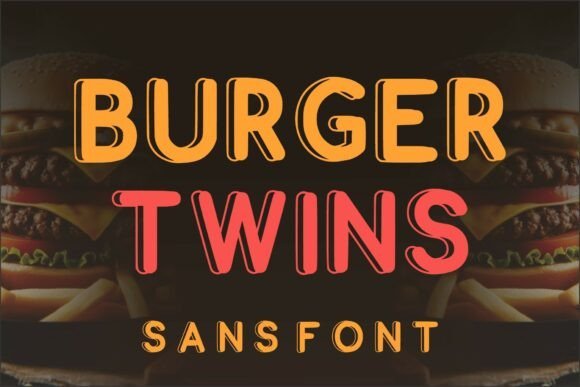
The Perfect Bite: Unlocking the Power of Burgertwins Regular 1 Font
Have you ever been scrolling through social media and come across a mouthwatering food photo that immediately grabs your attention? The vibrant colors, the playful graphics, and the bold typography all come together to create an irresistible visual experience that makes your mouth water. For designers, creating this kind of impact is a challenge, but with the right font, it’s achievable. That’s where Burgertwins Regular 1 Font comes in – a bold and playful sans-serif display typeface that captures the lively vibe of retro diner culture.
This versatile font is perfect for menus, food packaging, branding, or social media graphics, bringing a warm, inviting personality that instantly grabs attention. Its clean, smooth strokes make it ideal for headlines and bold statements, while its vibrant, layered style delivers a unique twist that sets your designs apart.
Burgertwins Regular 1 Font Key Features
- Font Family: Burgertwins Regular 1
- Unique Characteristics: Burgertwins Regular 1 features a unique, hand-drawn design with a playful and whimsical feel, making it ideal for use in branding, advertising, and editorial content
Burgertwins Regular 1 Font Review
As a designer, I was excited to try out the Burgertwins Regular 1 Font. Here’s my honest review.
Firstly, I love the playful, retro vibe of this font. It’s perfect for casual, laid-back designs that need a touch of personality. The font is highly legible, making it suitable for body text and short paragraphs.
- The Burgertwins Regular 1 Font has a wide range of applications, from advertising and marketing materials to social media graphics and blog posts.
- Its friendly, approachable tone makes it a great choice for designs targeting a younger audience.
While the font is great for casual designs, it may not be the best choice for formal or professional projects. Additionally, the font lacks a bold weight, which can limit its use in headings and titles.
- The lack of bold weight makes it challenging to create clear headings and titles.
- The font may not be suitable for designs that require a high level of sophistication or elegance.
Overall, I think the Burgertwins Regular 1 Font is a great addition to any designer’s toolkit. While it may have some limitations, its unique personality and high legibility make it a great choice for casual, playful designs.
The Burgertwins Regular 1 Font is ideal for use in gaming and esports-related projects, as well as for creating a fun and playful atmosphere.
Can I use Burgertwins Regular 1 for digital displays and mobile devices?
Yes, Burgertwins Regular 1 is suitable for digital displays and mobile devices. However, it’s recommended to use a font size that’s at least 16pt to ensure readability on smaller screens. Additionally, you may need to adjust the font’s kerning and spacing to optimize its appearance on different devices.